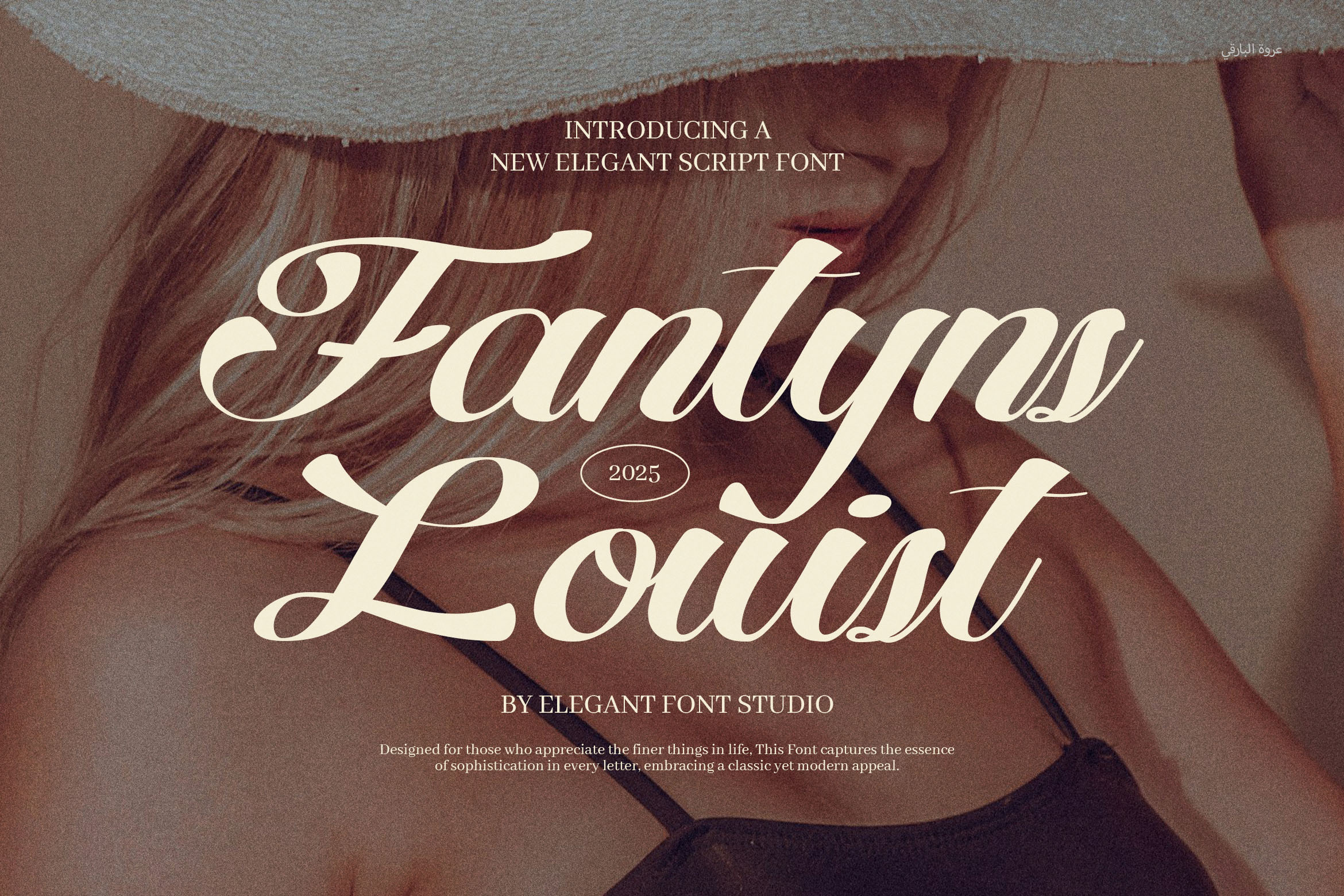
Fantyns Elegant Luxury Script Font
Fantyns is an elegant luxury script font that captures romance, grace, and timeless beauty in every stroke. At first glance, the flowing letterforms feel soft and expressive. However, the bold curves and refined contrast also give the typeface a strong visual presence. As a result, Fantyns balances delicacy and confidence, making it ideal for premium design projects.
The uppercase letters feature dramatic swashes that extend smoothly across words. Meanwhile, the lowercase characters remain clean and readable, which helps maintain clarity even in long phrases. In addition, the connections between letters feel natural, creating a handwritten rhythm that looks warm rather than mechanical. Because of this harmony, the font works beautifully for both large headlines and elegant branding.
Fantyns evokes the atmosphere of fashion editorials, wedding stationery, and luxury packaging. For example, it looks stunning on beauty products, boutique logos, and romantic invitations. Furthermore, its soft curves pair well with minimalist serif or sans-serif fonts, allowing designers to build balanced layouts with ease.
Key uses include:
Wedding invitations and save-the-date cards
Luxury logos and boutique branding
Fashion magazines and lookbooks
Beauty and skincare packaging
Modeling agencies and lifestyle brands
Social media quotes and covers
Unlike simple script fonts, Fantyns offers personality without sacrificing readability. On one hand, the decorative swashes add elegance and movement. On the other hand, the smooth stroke endings keep the text refined and calm. Therefore, it can adapt to both classic and modern aesthetics.
If you are searching for an elegant script font that feels luxurious, romantic, and contemporary, Fantyns is a perfect choice. It transforms ordinary words into graceful statements while preserving clarity and sophistication.